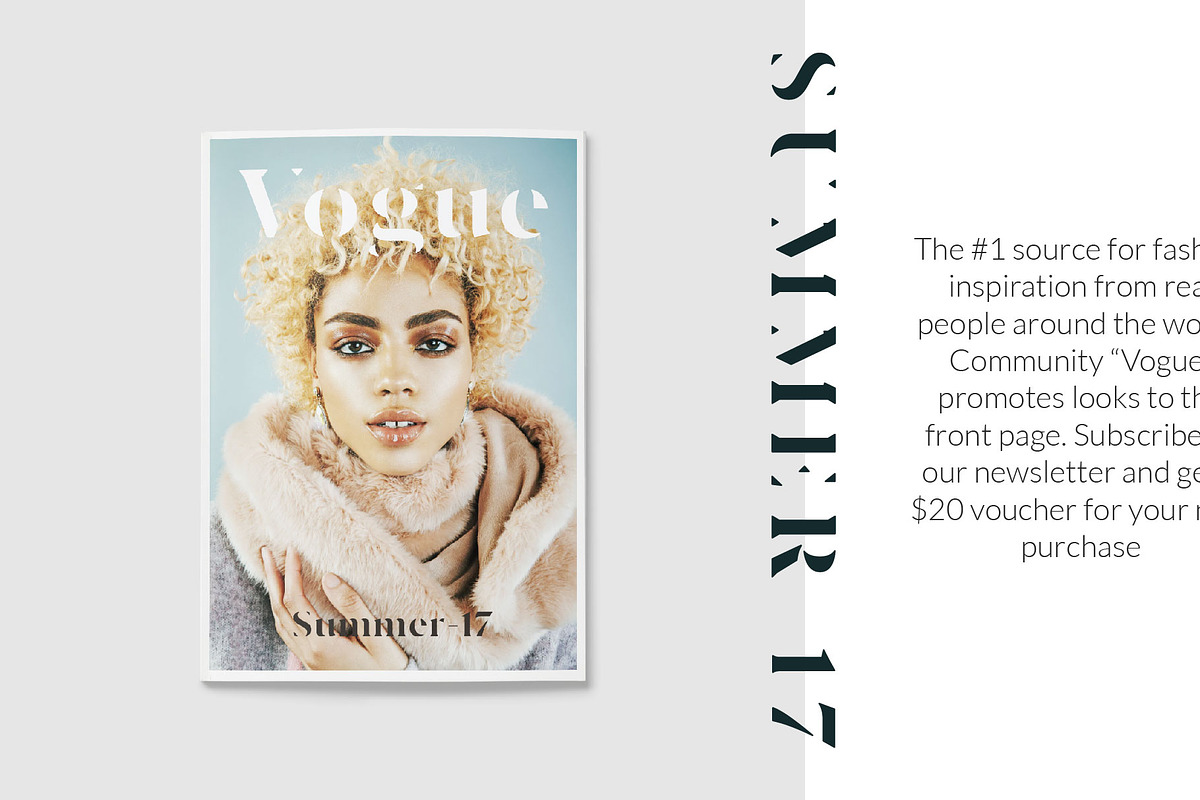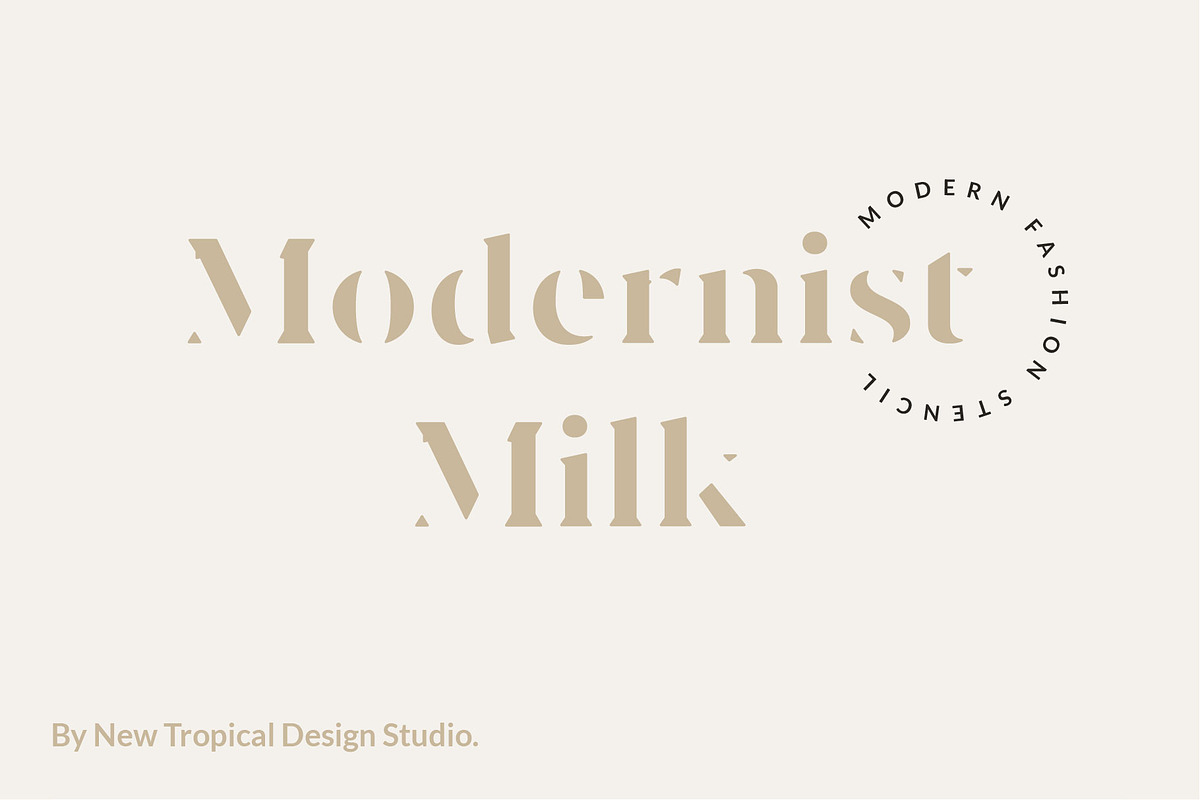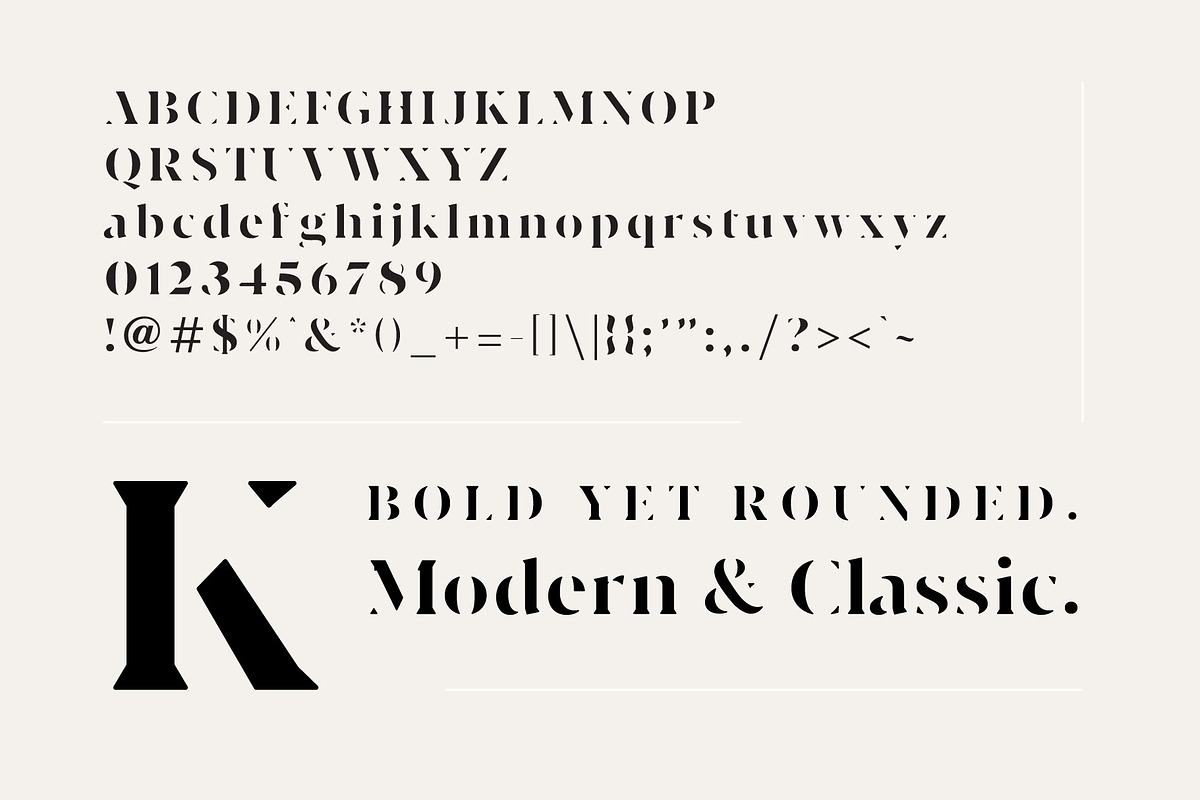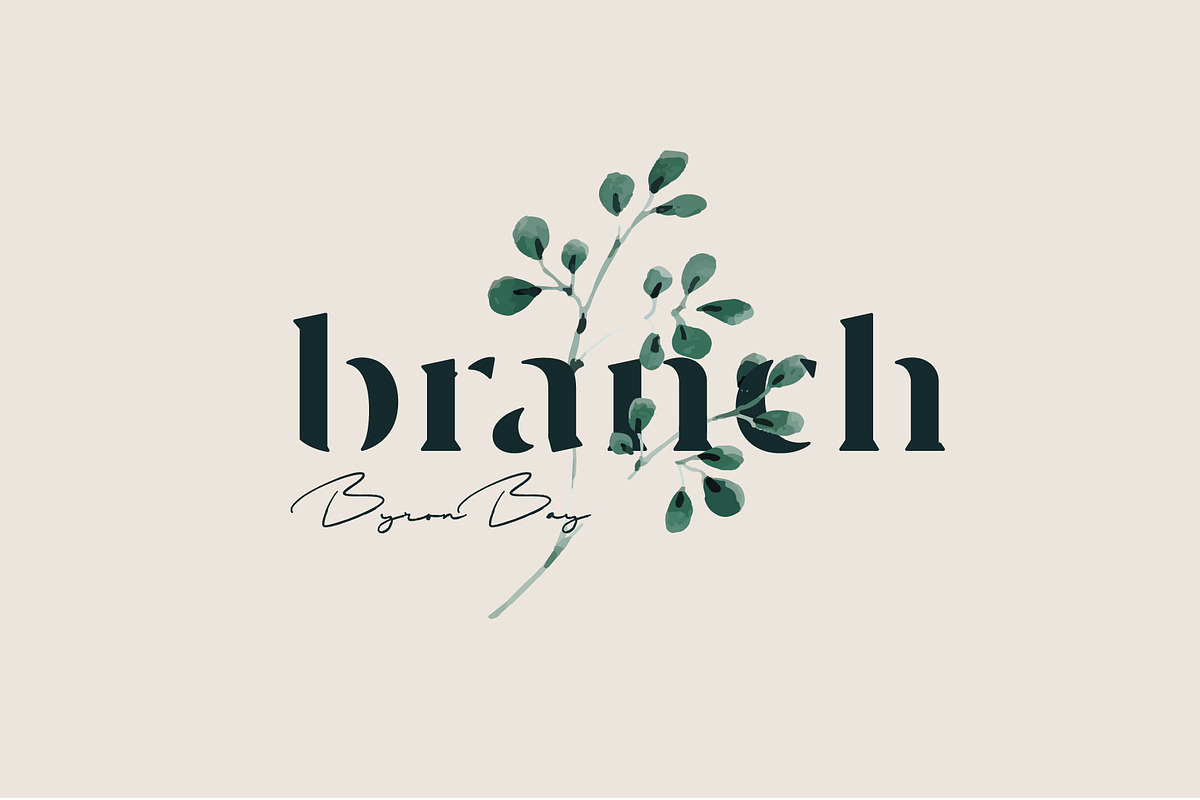
Modernist Milk -Fashion Stencil Font
Modernist Milk is the perfect blend between bold, modern and feminine. It's strong yet soft, urban and high fashion. The hard lines with subtle rounded edges gives it a perfect mix of contemporary typography and classic design. Versatile is an understatement.
For minimal logos, fashion editorials, pull quotes and more.
Pairs well with thin scripts and clean sans serif.